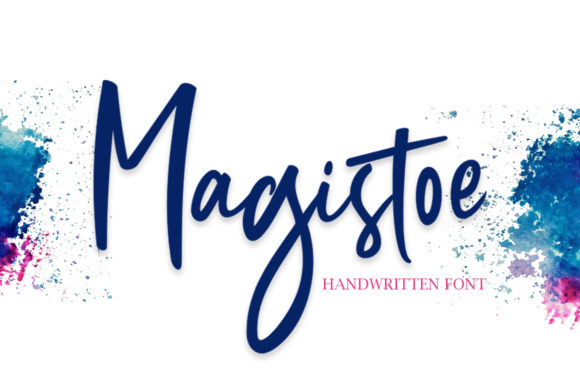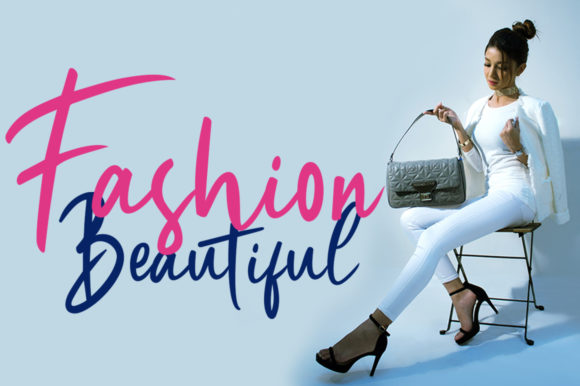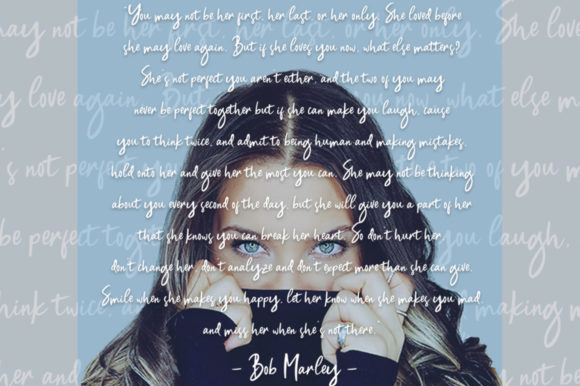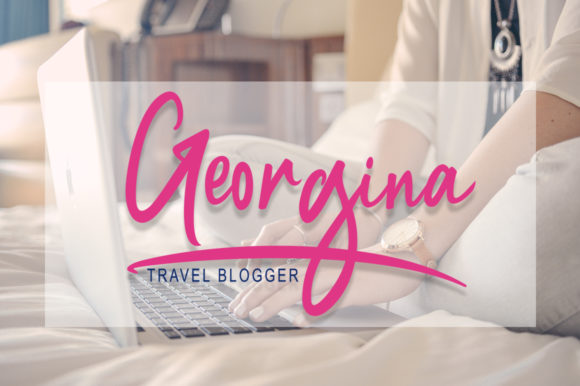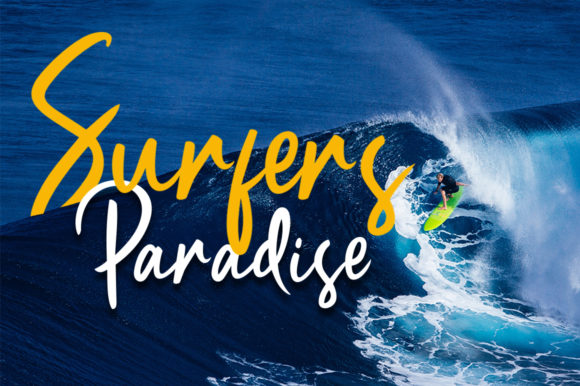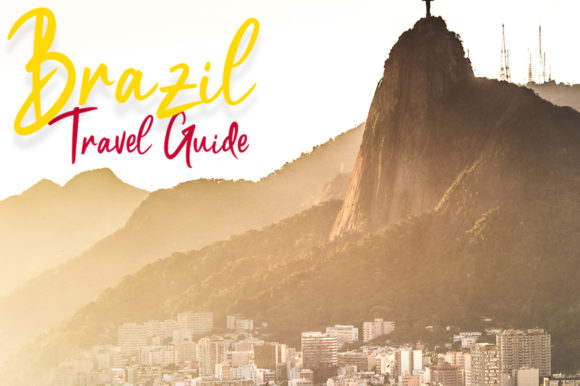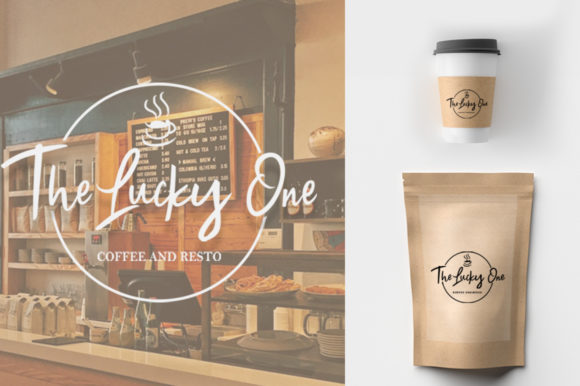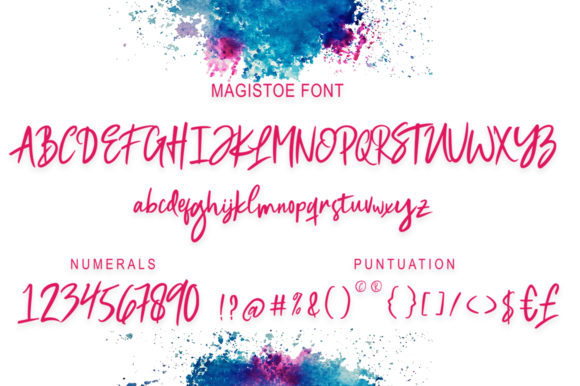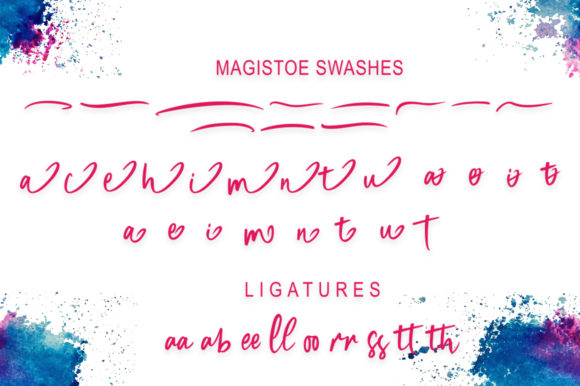
Magistoe Script Font
About Magistoe Script Font
The Magistoe is a fresh and modern script font. It has a handmade calligraphy style, decorative characters and a dancing baseline! It’s beautiful on invitations, greeting cards, branding materials, business cards, quotes, posters, and more!